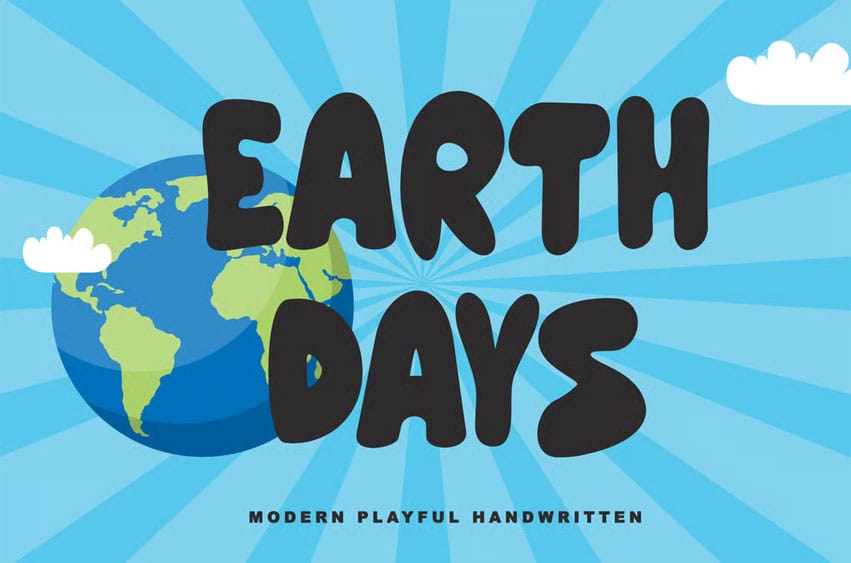
Earth days Font is a display Hand-written font inspired by earth day and features an incredibly fun and cool feel! Get inspired by its friendly charm. This font is PUA encoded which means you can access all of all the glyphs with ease!
- lowercase and uppercase letters